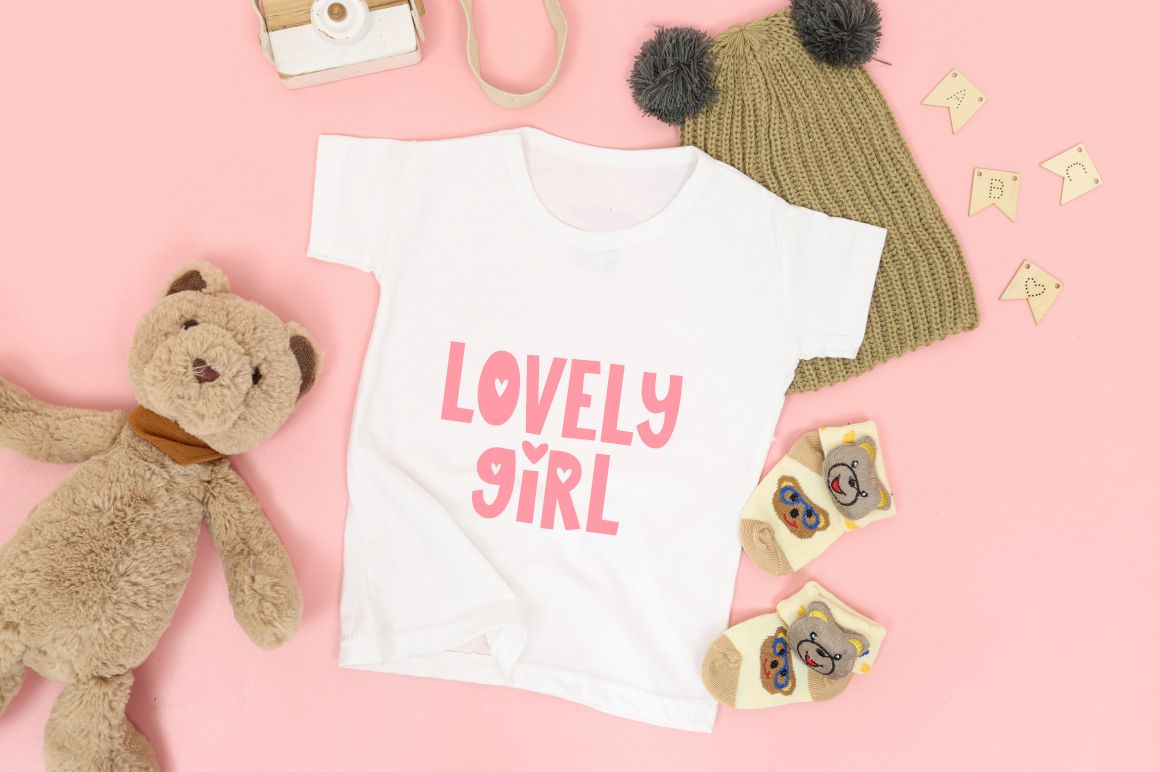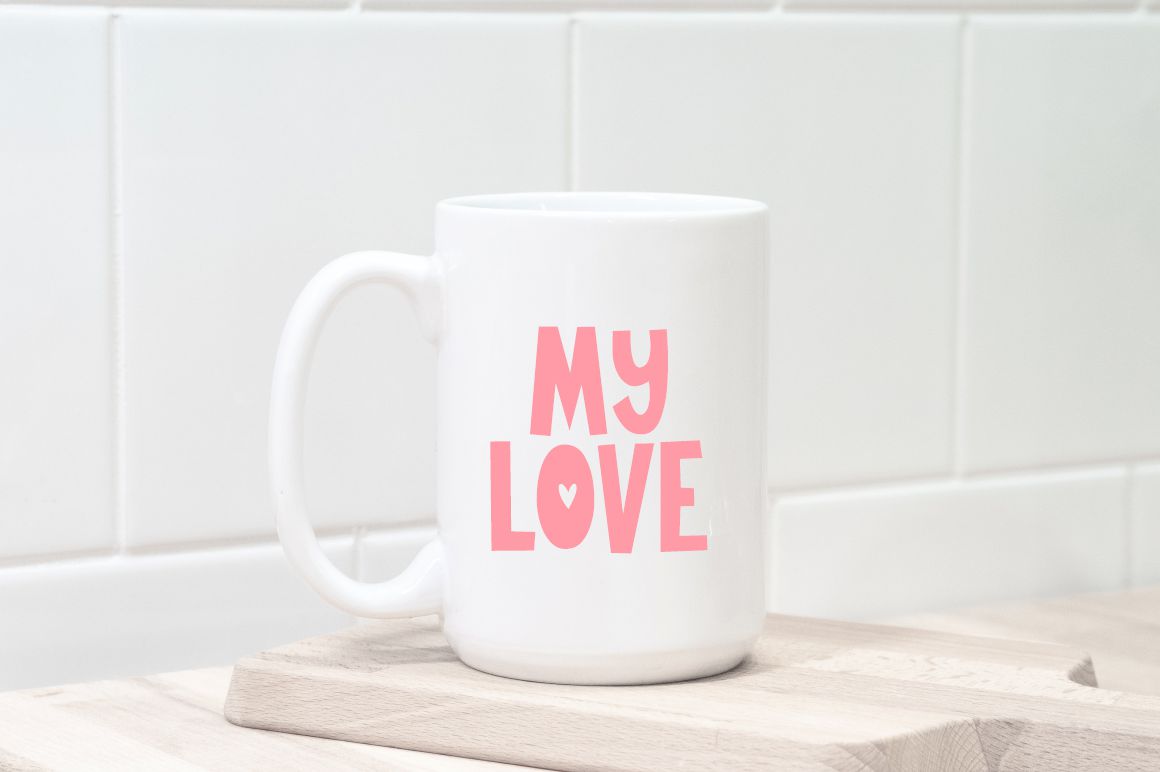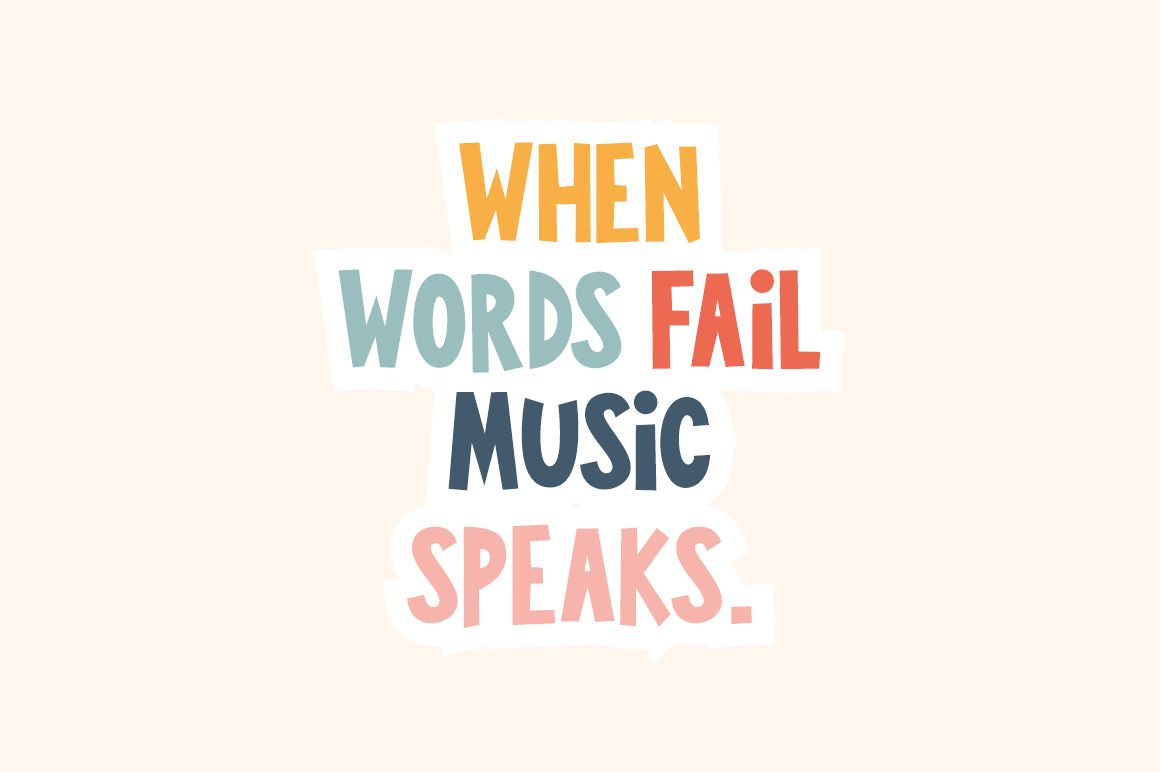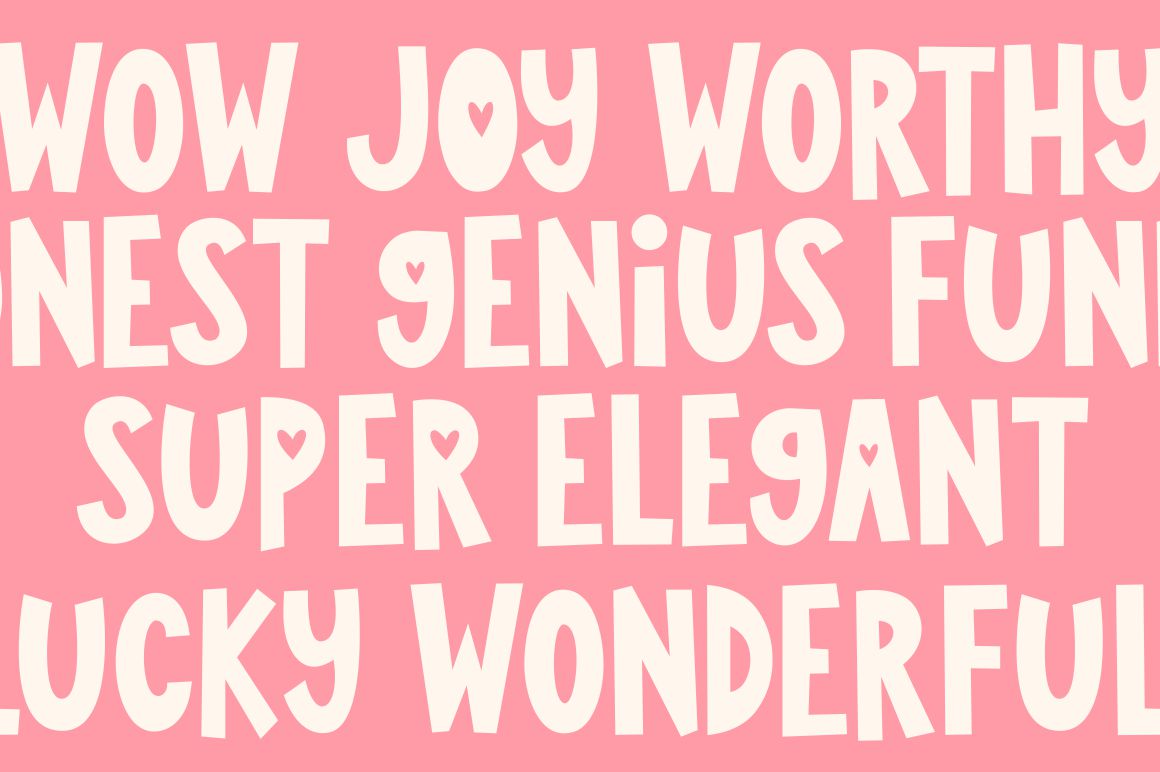
Cupid Darling Display Font
A sweet and playful display typeface. Cupid Darling is perfect for branding, logos, social media quotes, stickers, posters, vintage designs, wall art and more! This font will make your design looks great and fun!